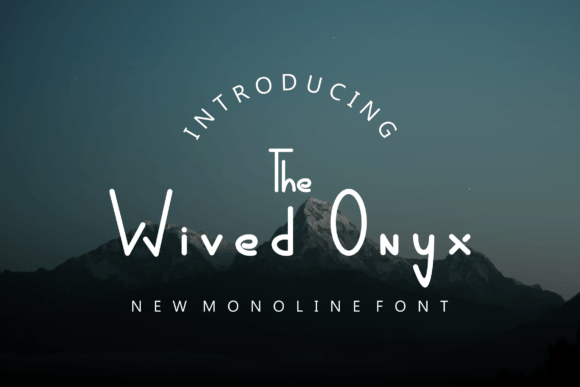
Embrace the charm and sophistication of Wived Onyx, a contemporary sans serif font family that exudes elegance and warmth. Its meticulously crafted characters dance across the page, leaving a trail of visual allure that captures the senses. Designed with the modern communicator in mind, Wived Onyx is the perfect font for crafting stunning resumes that demand attention and leave a lasting impression.
Step into the world of Wived Onyx and discover a font that seamlessly blends timeless aesthetics with a touch of innovation. Its clean lines and graceful curves create a visual symphony that invites readers to delve into your content with ease. Whether you're a design enthusiast seeking a touch of sophistication or a professional seeking to elevate your personal brand, Wived Onyx is your ultimate companion.
With Wived Onyx, you hold the key to unlock boundless creative possibilities. Its versatility extends across a wide range of applications, from sleek business cards that exude professionalism to eye-catching social media graphics that ignite engagement. Unleash your imagination and let Wived Onyx transform your words into captivating visual masterpieces.
Join the ranks of creative visionaries who have embraced Wived Onyx as their font of choice. Experience the joy of creating designs that resonate with audiences, leaving an indelible mark on their minds. Wived Onyx is not just a font; it's an extension of your creativity, a tool that empowers you to tell your story with unmatched grace and impact.